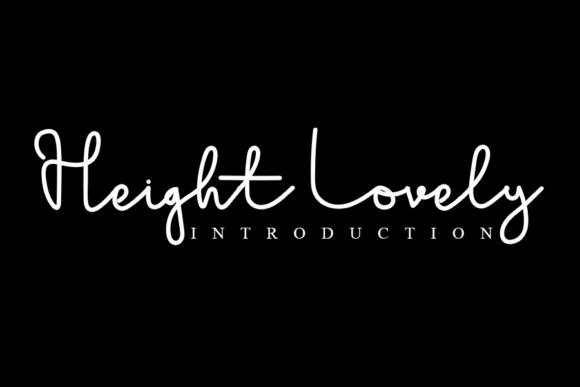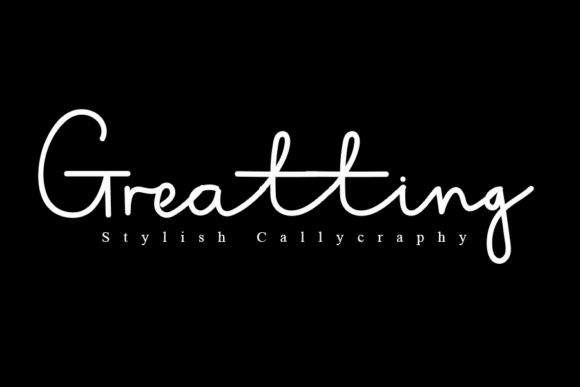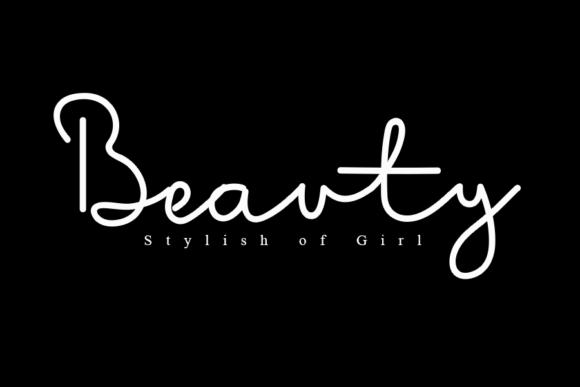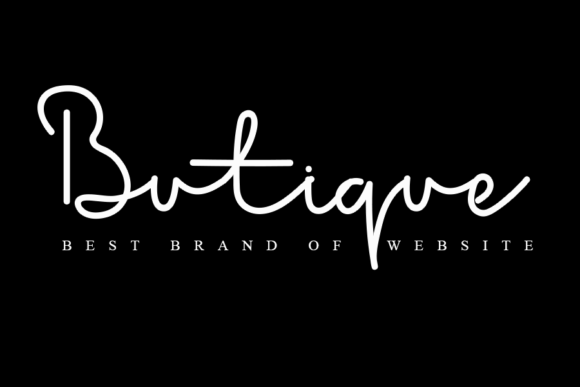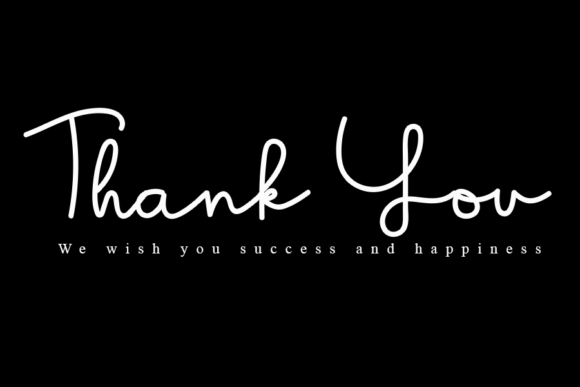
Heigh Lovely Font
About Heigh Lovely Font
Heigh Lovely is a magical handwritten font carefully created with a touch of elegance. Fall in love with its incredibly distinct and timeless style and use it to create spectacular designs!